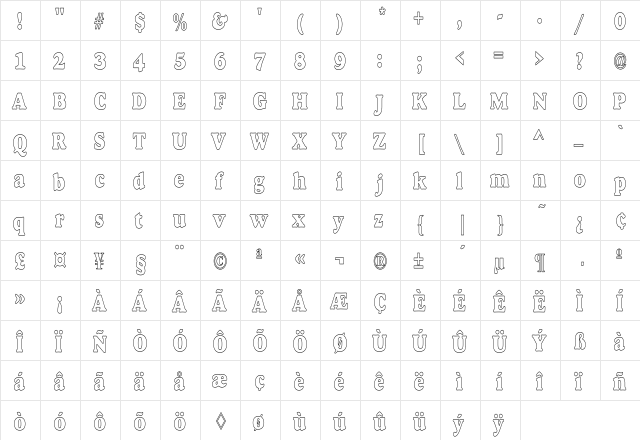
Alexuss Heavy Hollow Condensed Regular
Design Context for Alexuss Heavy Hollow Condensed Typeface
Alexuss Heavy Hollow Condensed offers clean, dependable letterforms without strong stylistic allegiance, making it a practical choice for designers who need flexibility. Its narrow stance lets it pack a punch even in space-constrained designs.
Pro Tip: Use Alexuss Heavy Hollow Condensed in both headline and body roles to test its range before committing to a single application.